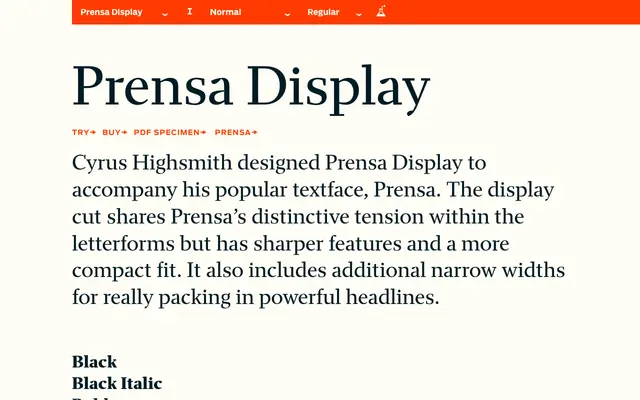
Prensa Display
Occupant Fonts · Cyrus Highsmith · 1993
A sharper, more tightly fitted display companion to Cyrus Highsmith's Prensa text family, built for powerful headline work across three widths.
Designed by Cyrus Highsmith as a headline counterpart to his Prensa text face, Prensa Display retains the distinctive internal tension of the original while introducing sharper features and a more compact fit. Thirty-six styles span six weights from Light to Black across standard, Condensed and Compressed widths, each with matching italics. The narrower cuts are built explicitly for dense headline settings where typographic impact matters.
A display-optimised companion to the Prensa text family, with sharper features and tighter fit than its text counterpart, placing it firmly in the display serif category designed for headline and large-scale use.